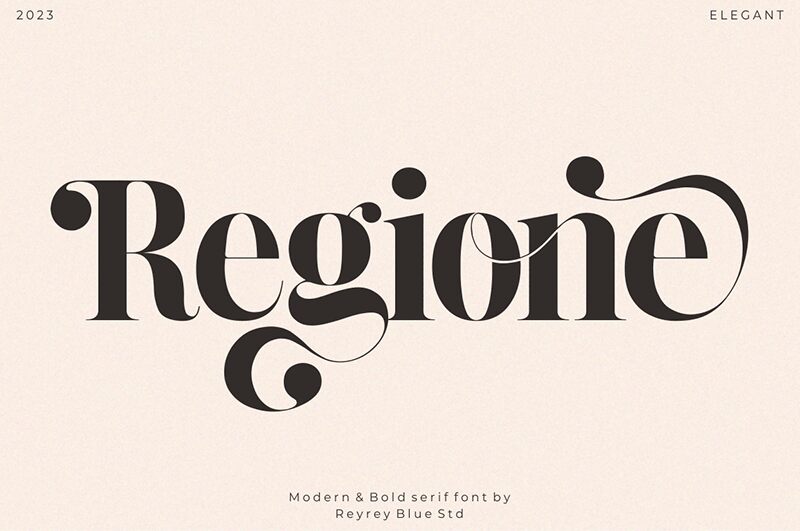
Regione
Regione font by ReyreyBlue is a free serif font with bold serifs and exceptional contrast. The elegant style seen in its letters stems from a classic influence yet carries modern appeal. This high-contrast typeface’s energy adds to the dramatic flair that goes hard unnoticed.
Put Regione and its attributes into book covers, magazine pages, posters, flyers, business cards, website headers, serial numbers on packages or any other part of any creative project whether small or large.